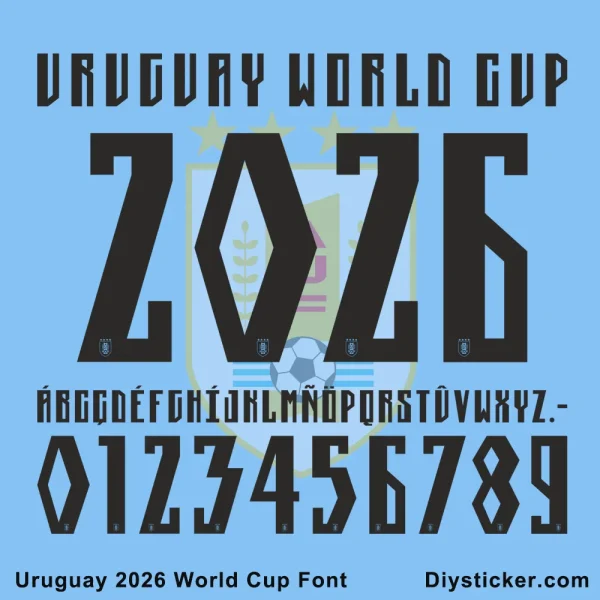
Elevate Your Designs with the Uruguay 2026 World Cup Font
Are you looking to recreate the iconic look of the Uruguayan National Team? Our Uruguay 2026 World Cup Font is the ultimate digital asset for kit designers and football enthusiasts. This font captures the bold, geometric spirit of South American football, designed specifically for the upcoming global stage.
Full Character Set: Includes all uppercase letters, numbers, and special accents (Á, É, Ñ, etc.) used by the AUF.
Precision Engineering: Every curve and angle is meticulously traced to match the official 2026 jersey aesthetics.
Design Tip: Pair this font with the official Uruguay National Team colors to create authentic-looking jerseys and promotional materials.
Whether you are preparing a custom jersey for the stadium or designing a sports poster, this font ensures your work looks professional and authentic.